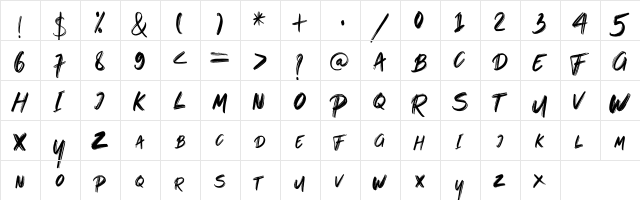
On The Way Regular
Design Context for On The Way Typeface
On The Way is a composed and adaptable typeface that performs quietly and consistently across a wide range of design contexts.